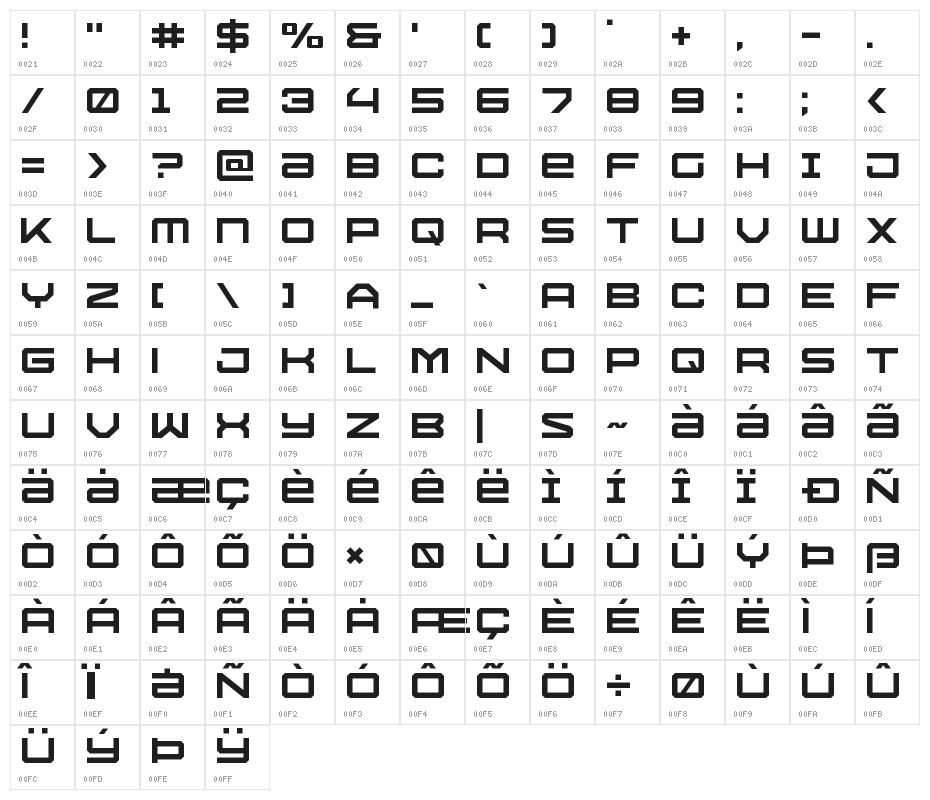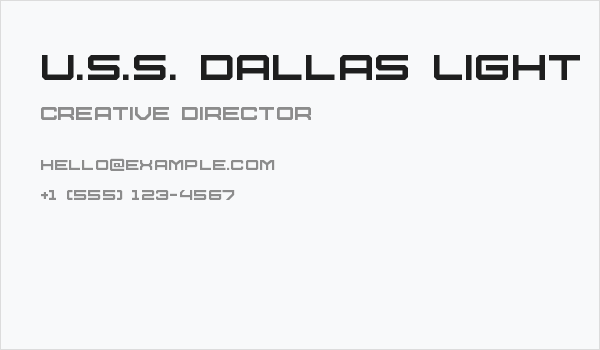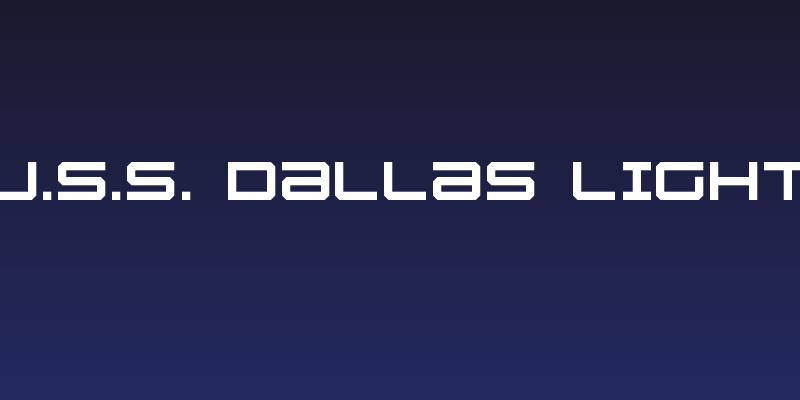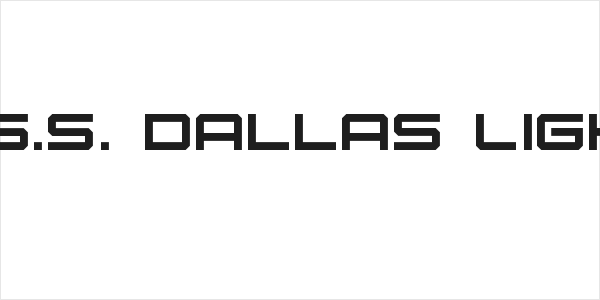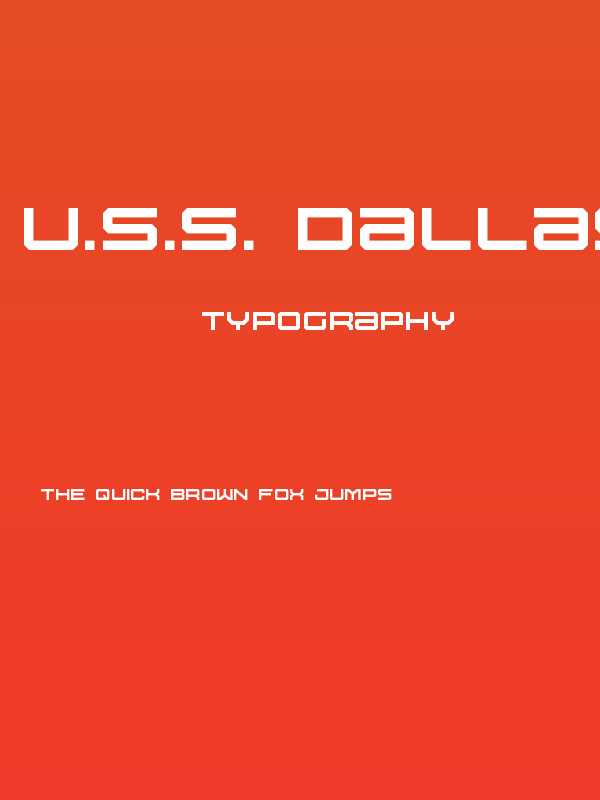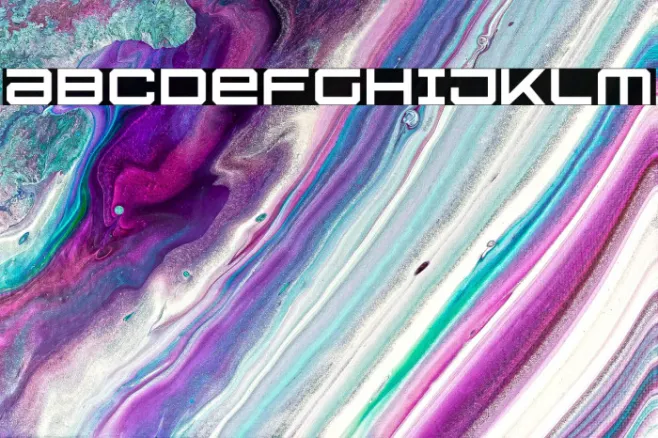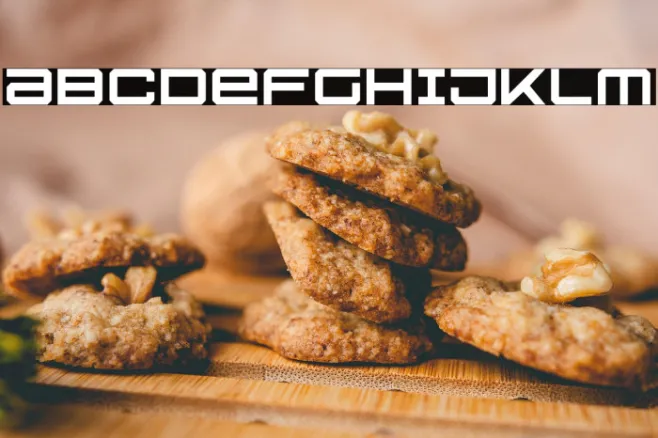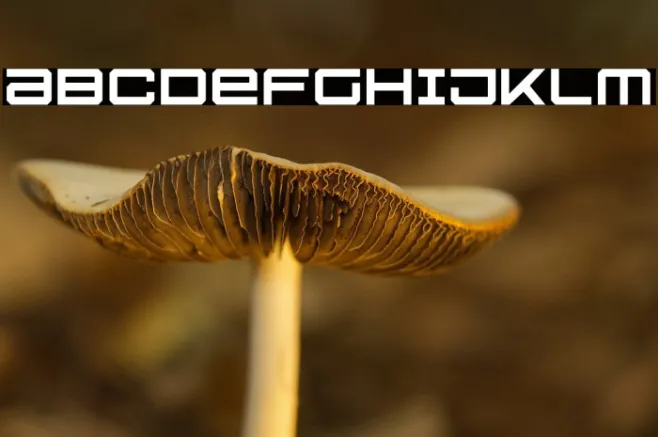
U.S.S. Dallas Light Font
U.S.S. Dallas Light Description
This font features a bold and geometric design with a futuristic aesthetic. The characters are constructed with straight lines and sharp angles, giving it a technical and modern appearance. The uppercase and lowercase letters maintain a consistent style, with a uniform height and width that enhances readability. The numerals and special characters are designed to match the angular and structured look of the alphabet, ensuring a cohesive visual experience. This font is ideal for projects that require a strong and contemporary feel, such as technology branding, digital interfaces, and modern advertising.
| Proposed Projects | Ideal for technology branding, digital interfaces, modern advertising, and futuristic designs. |